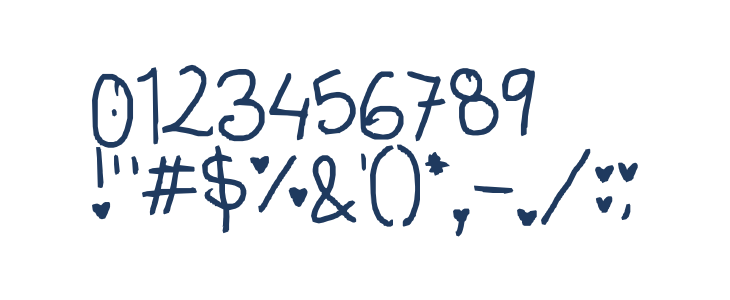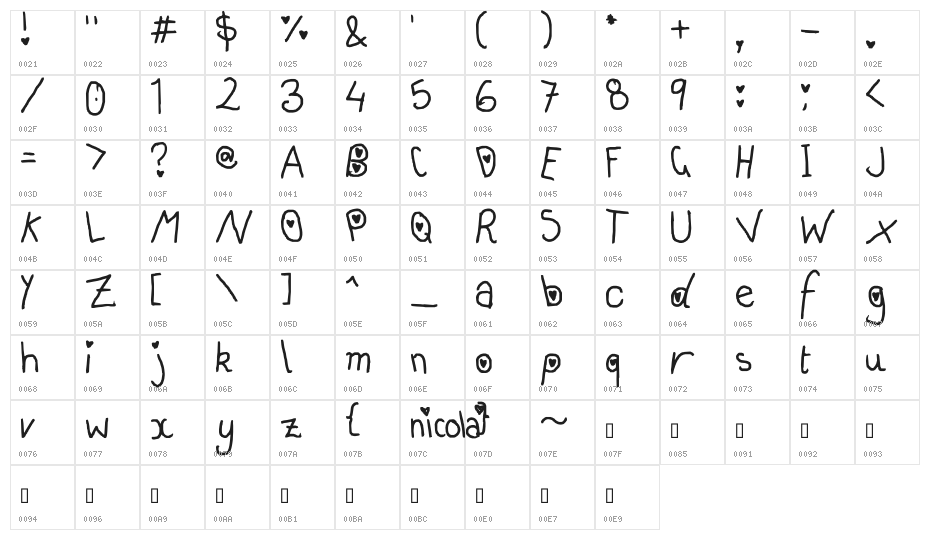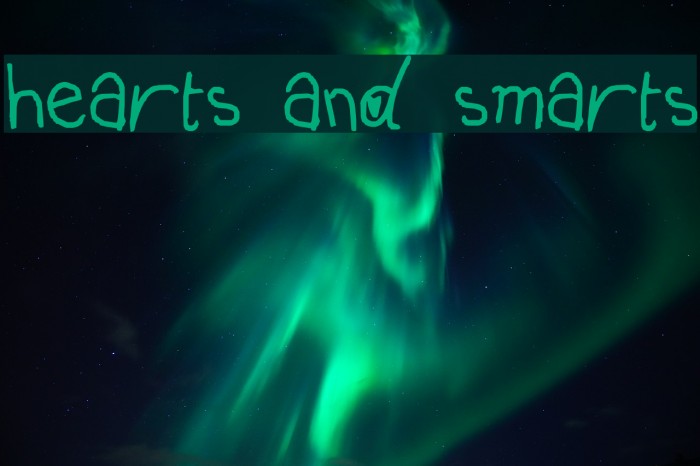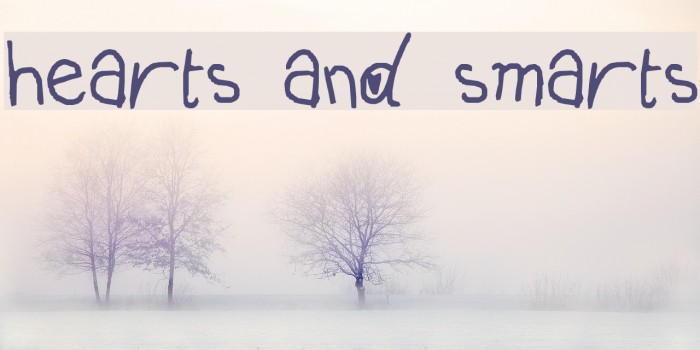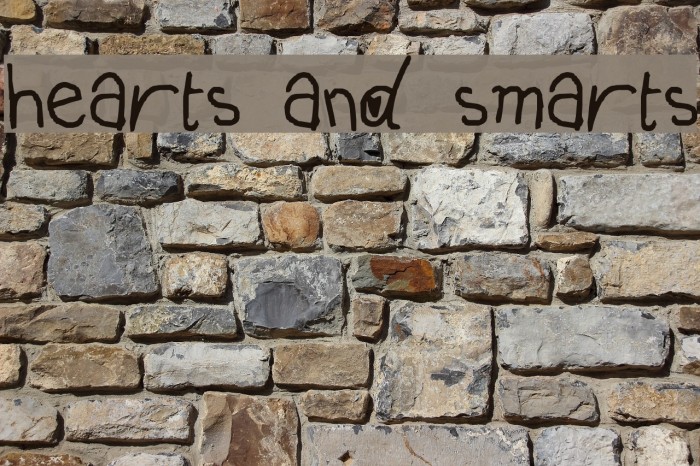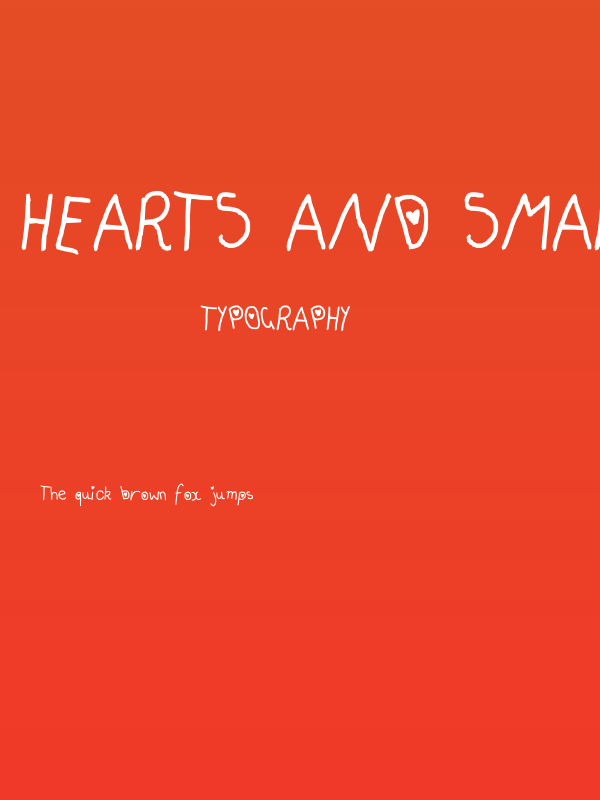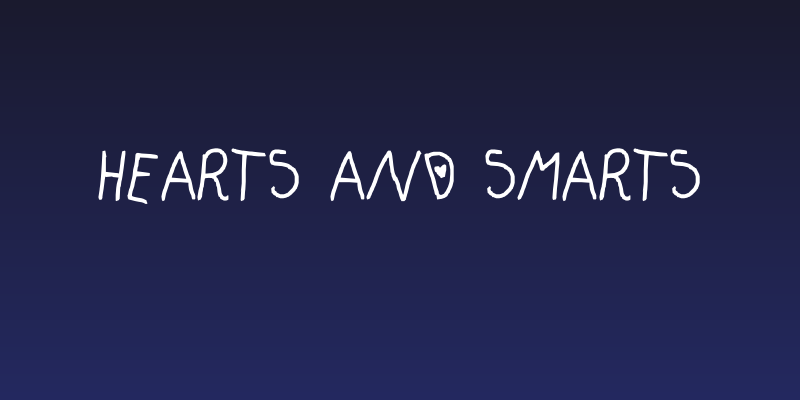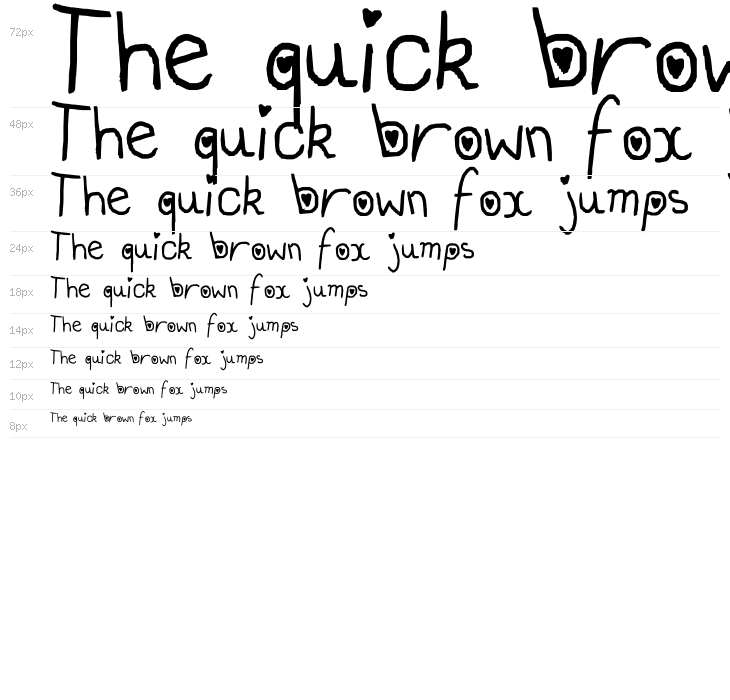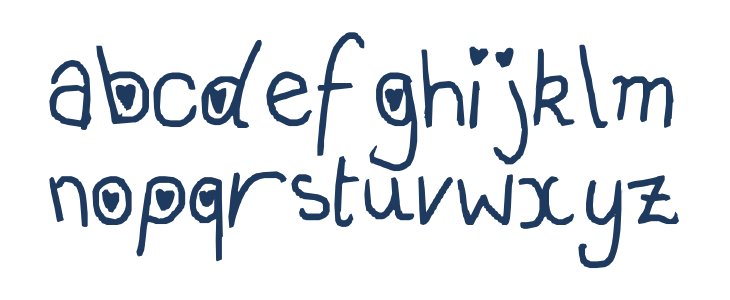
hearts and smarts Font
hearts and smarts Description
This playful and whimsical font features a handwritten style with a unique twist. Each letter is crafted with a casual, freeform appearance, and some characters incorporate heart shapes, adding a charming and endearing touch. The strokes are uneven, giving it an organic and lively feel, perfect for conveying warmth and friendliness. The font maintains a consistent flow, with rounded edges and a slightly irregular baseline, enhancing its informal and approachable nature. Ideal for projects that require a personal, heartfelt touch, this font stands out with its creative and imaginative design.
| Use Case | Logos, Headlines, Invitations |
| Proposed Projects | Greeting cards, children's books, playful branding, personal notes, and creative invitations. |